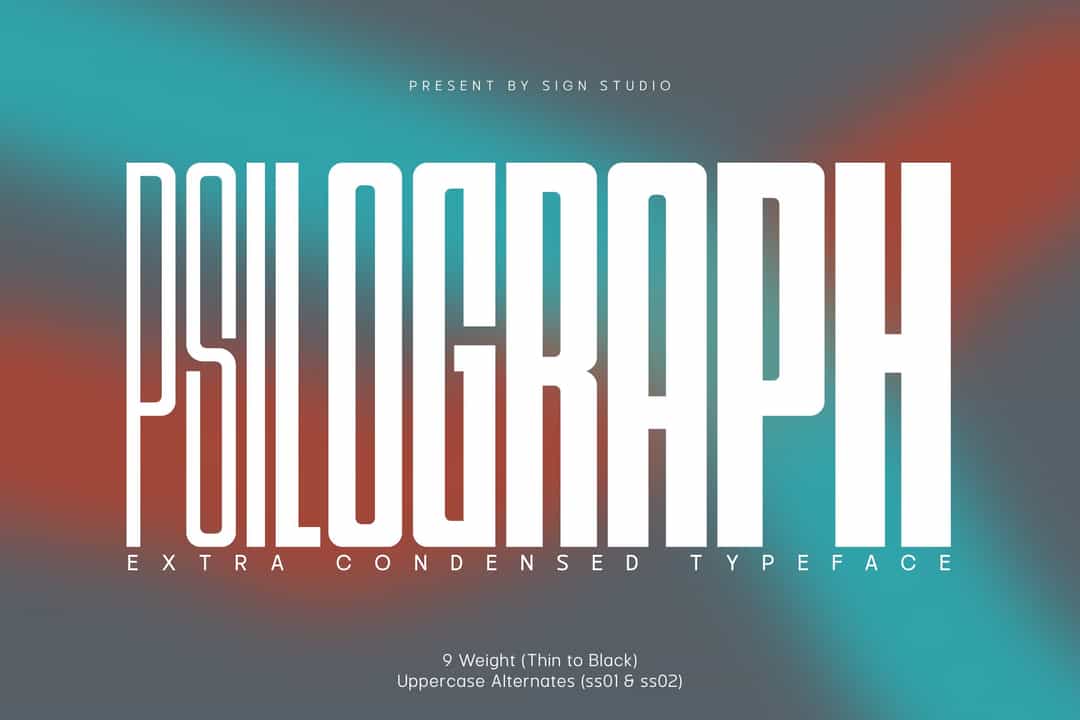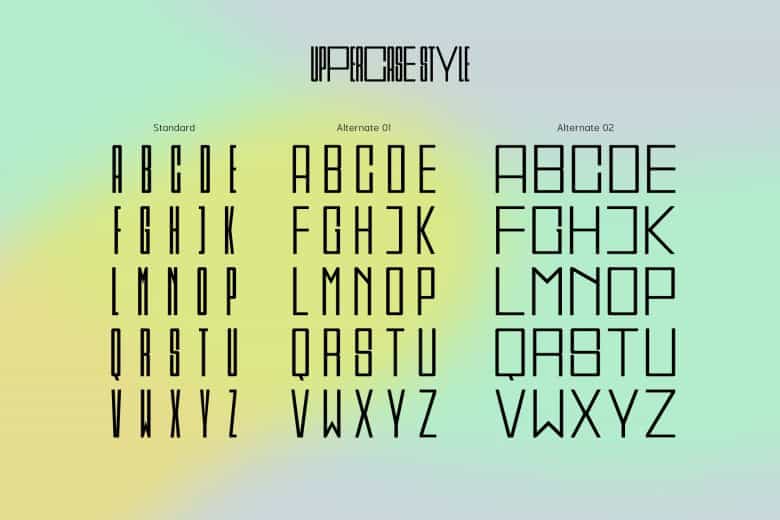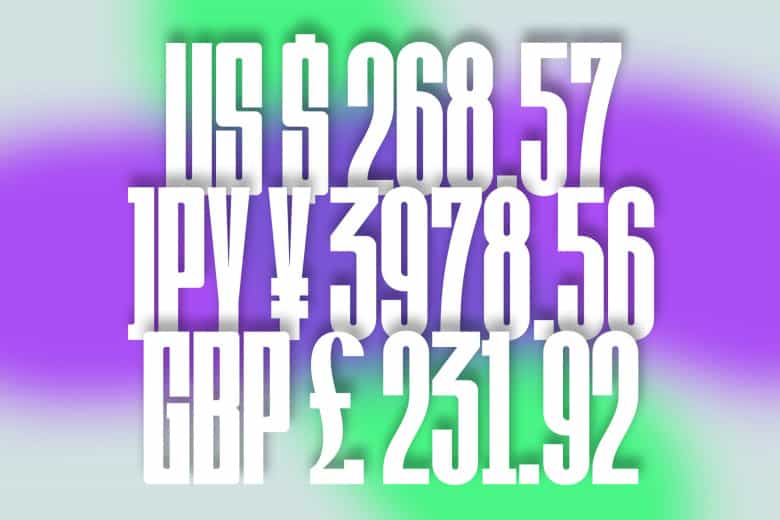
Psilograph is a condensed type style. It creates a striking impression, making a powerful statement when combined with simple sans serif fonts for body copy – perfect for creating more modern and casual text, such as headlines, prints with tall-format posters, displays or any large-scale prints.